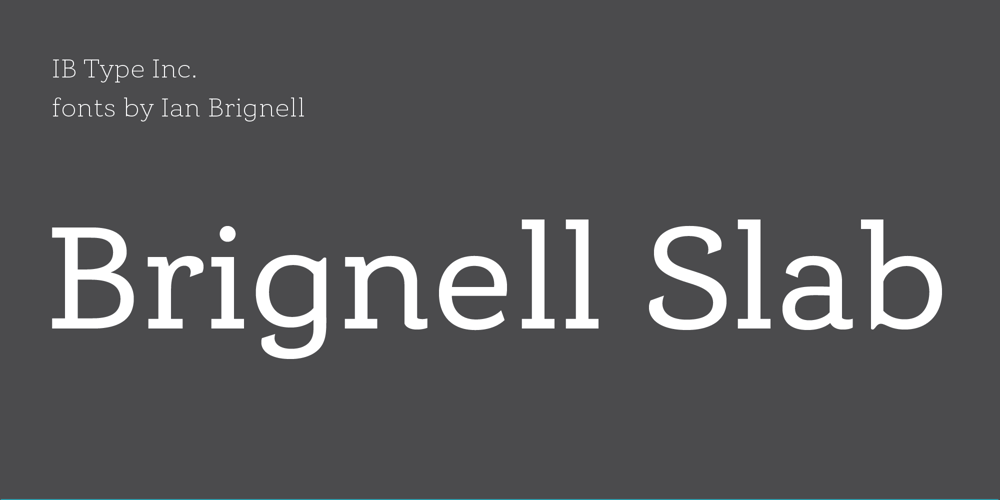
Brignell Slab
Brignell Slab font
Brignell Slab Font Family was designed by Ian Brignell and published by IB TYPE Inc.. Brignell Slab contains 8 styles and family package options. BRIGNELL SLAB is an eight font family designed by Ian Brignell.Curvaceous and dynamic, this unique slab exudes honesty and personality.A slab serif characterized by a soft treatment where normally you would see vertical serifs. This feature allows for a smoother, less toothy, reading effect. Brignell Slab was born in 2008 and was inspired by the logo and custom font Ian designed for Naturalizer. Extended Latin set.